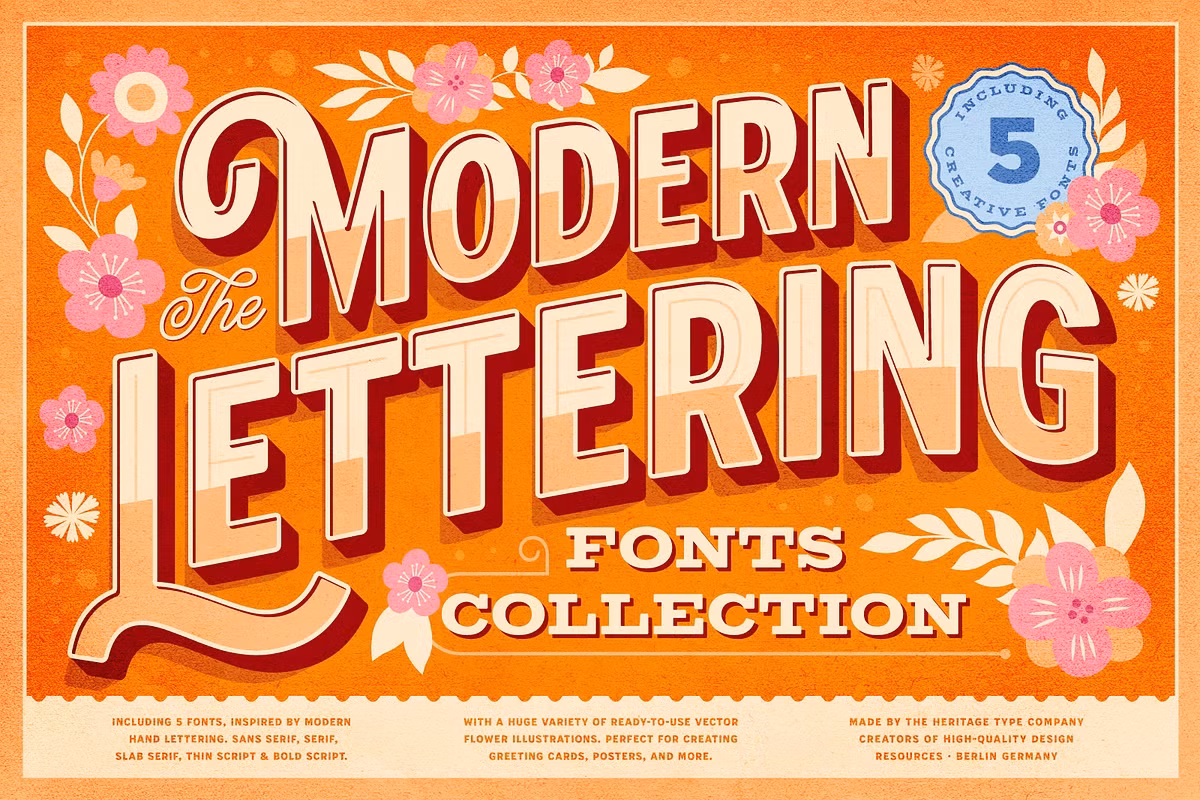
Modern Lettering Fonts Collection Free Download
Modern Lettering Fonts Collection Free Download is a curated set of stylish and expressive typefaces designed to elevate your creative work with contemporary flair. This collection features a range of lettering styles—from sleek scripts to chic sans serifs—making it perfect for logos, branding, social media graphics, packaging, and lifestyle content. Each font is carefully crafted to deliver personality, elegance, and versatility.
Whether you're creating a bold brand identity or a soft, handwritten quote, the Modern Lettering Fonts Collection Free Download has the variety to suit any aesthetic. With smooth curves, artistic strokes, and attention to detail, these fonts provide a handcrafted feel that works beautifully across both digital and print platforms.